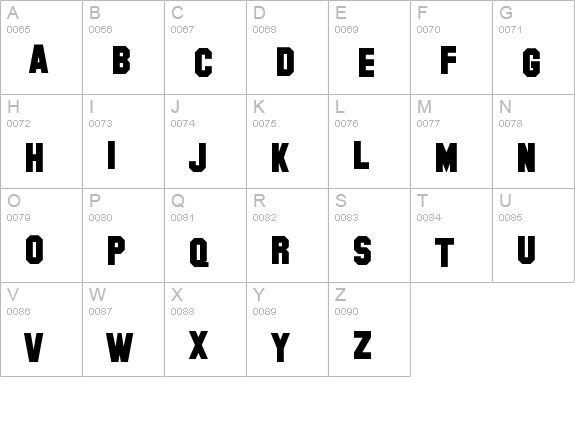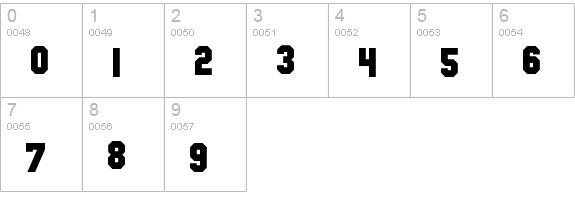
Hollywood Hills Bold is a strong, high-contrast variant in the Hollywood typeface family \xE2\x80\x94 well suited to headlines, attention-grabbing titles, and strong calls-to-action.
Introducing Hollywood Hills Bold font, a sleek and sophisticated typeface that exudes elegance and glamour. This font is perfect for adding a touch of luxury to your design projects, whether it be for movie posters, fashion magazines, or high-end branding. With its bold and striking appearance, Hollywood Hills Bold font commands attention and makes a memorable statement. Its clean lines and sharp angles give it a modern edge, while still maintaining a classic feel that is synonymous with the iconic Hollywood Hills. Best of all, Hollywood Hills Bold font is available for free download at FontsMarket.com. So, whether you're a seasoned designer or just starting out, you can add this stunning font to your collection without breaking the bank. Elevate your designs with Hollywood Hills Bold font and let your creativity shine!